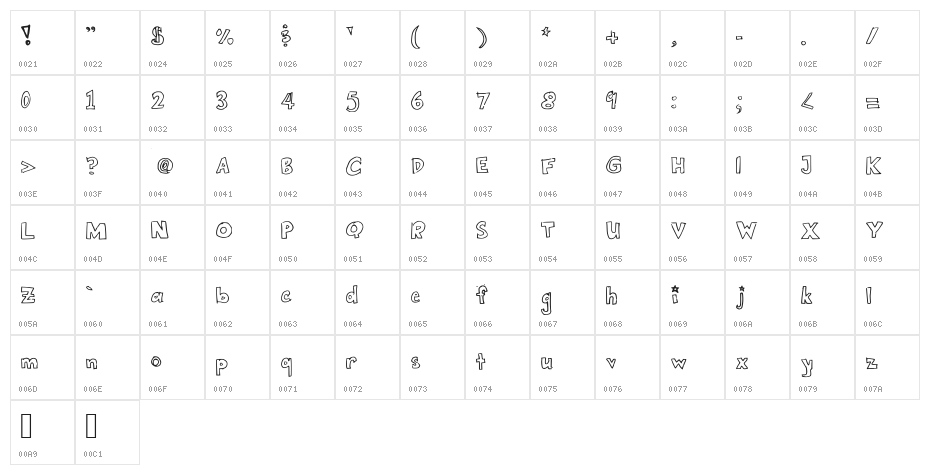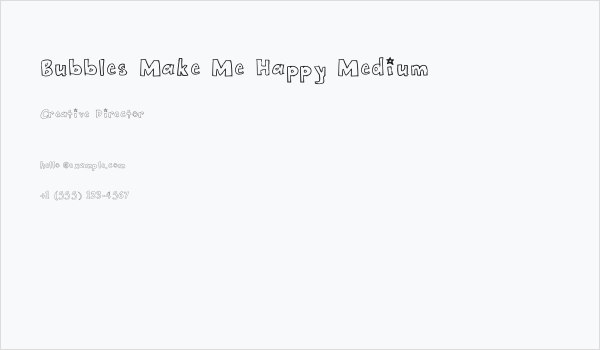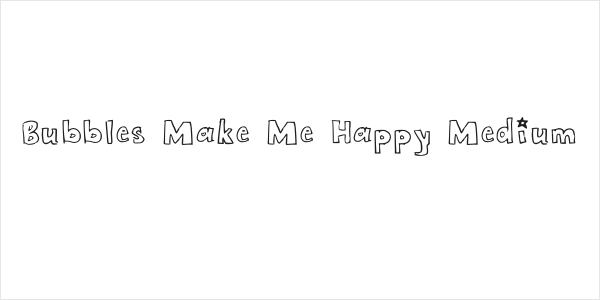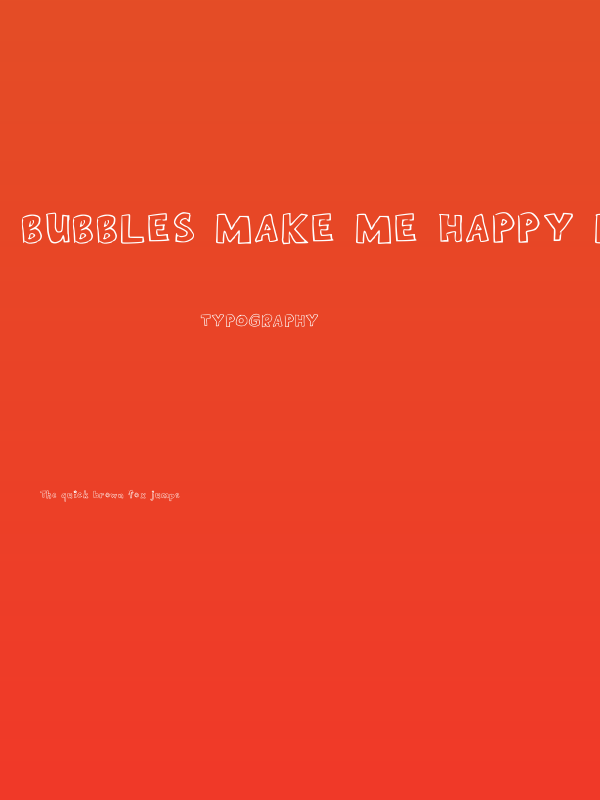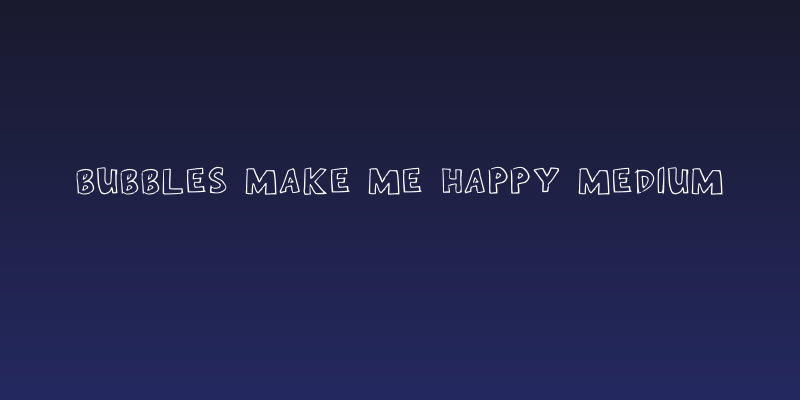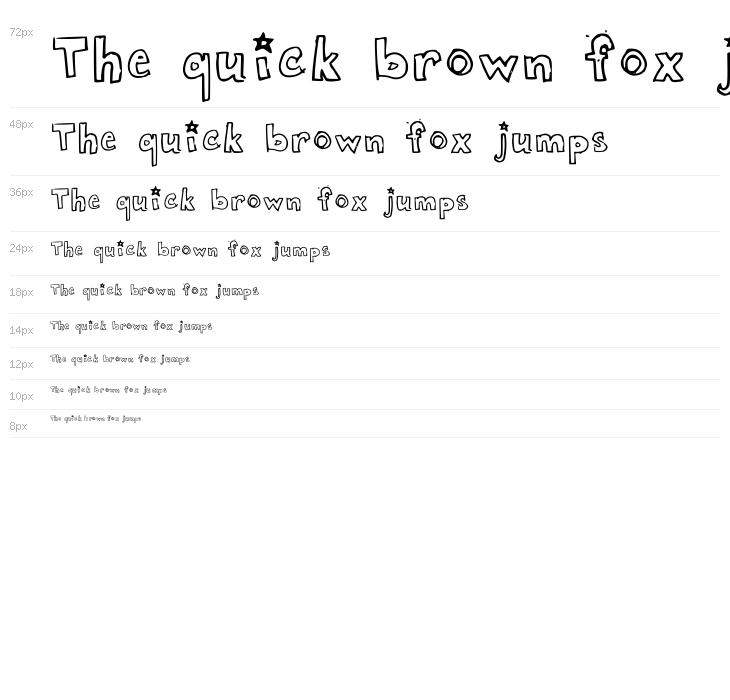
Bubbles Make Me Happy Medium Font
Bubbles Make Me Happy Medium Description
This playful and whimsical font features bold, bubbly letters with a hand-drawn aesthetic. Each character is outlined, giving it a cartoonish and informal feel. The uppercase and lowercase letters maintain a consistent style, with rounded edges and a slightly uneven baseline, adding to the font's charm. Numbers and special characters are equally playful, making this font ideal for creative and fun projects. The overall design is light-hearted and approachable, perfect for capturing attention in a friendly manner.